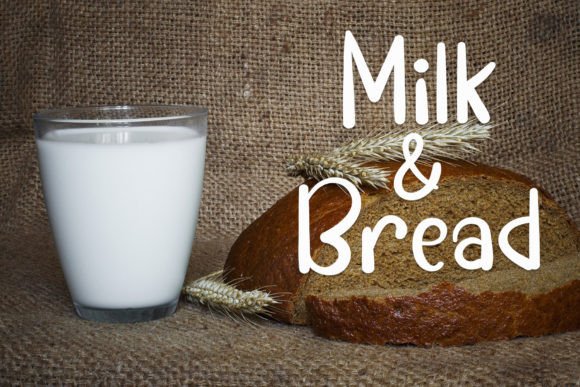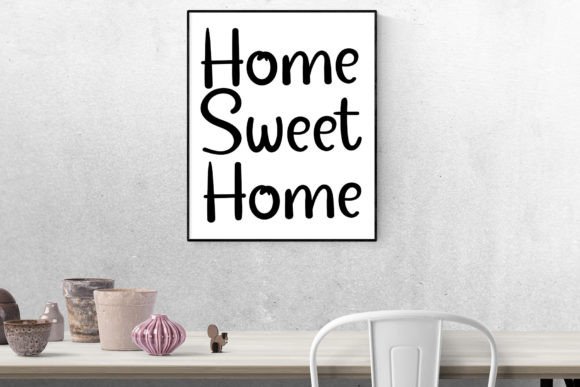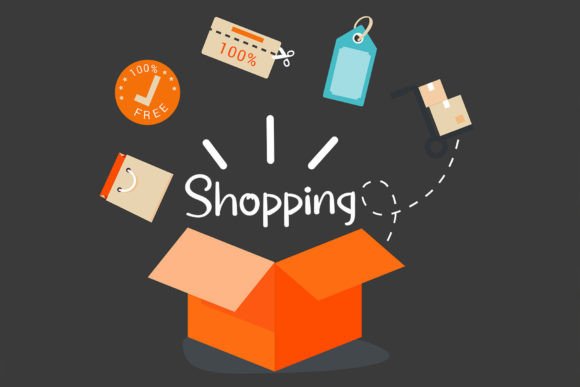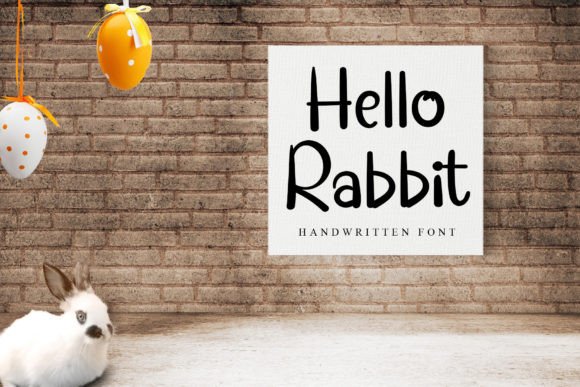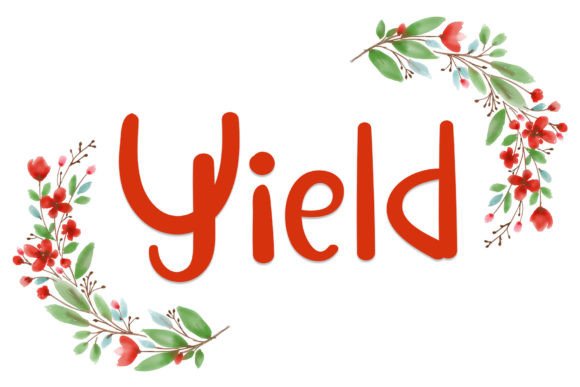
Yield Font
A Beautiful and Natural Handwritten Script
Yield is an elegant handwritten script font designed to bring warmth and personality to any project. Each letter features smooth curves and varied baselines, creating a natural, authentic feel that is both stylish and approachable.
The font’s graceful strokes make your text feel thoughtful and polished. Whether you are designing professional materials or personal projects, Yield helps your words stand out in a memorable way.
Yield is a versatile font that adapts beautifully to a wide range of uses. It looks stunning on wedding invitations, save-the-date cards, and elegant event signage. You can also use it for greeting cards, thank-you notes, and handmade product labels.
This font is a great choice for logos and business cards, where its natural flow adds a friendly and professional touch. The smooth, organic style also works perfectly for billboards, posters, and social media graphics.
The font includes uppercase and lowercase letters, numbers, and punctuation marks. It also features ligatures to help your text flow smoothly and look complete.
Clear, Graceful, and Easy to Read
Even though Yield has a varied baseline and handwritten look, it remains clear and easy to read at any size. The balanced spacing keeps your text tidy, whether you are designing large headlines or small captions.
Many designers like pairing Yield with clean sans-serif fonts for a modern contrast. Use Yield for titles and a simple font for body text. This approach guides the reader’s eye and keeps your layout clean and professional.
To highlight Yield’s elegant character, use soft backgrounds and light color palettes. Neutral tones like ivory, beige, and blush help the smooth curves stand out without distraction.
When designing wedding materials, add floral illustrations or watercolor textures to enhance the romantic, timeless feel. For logos and branding, keep your layouts simple so the handwritten style becomes the focus.
Think about the mood you want to create. Yield is perfect for projects that should feel authentic, warm, and sophisticated.
Yield is more than just a beautiful script font. It’s a creative tool that transforms ordinary text into something special. Its varied baseline and natural flow bring life and elegance to every design.
Adding Yield to your font library gives you a reliable option for all types of creative work. From wedding invitations and business cards to product packaging and social media graphics, this font adapts effortlessly to your ideas.